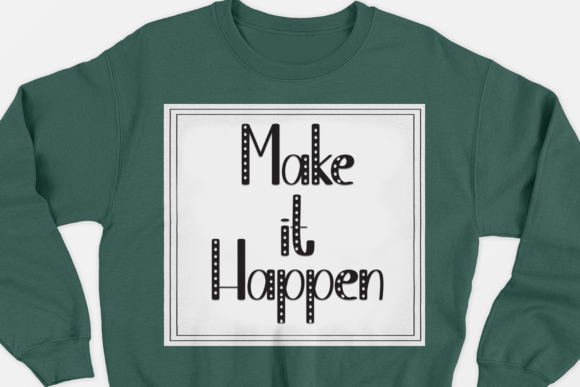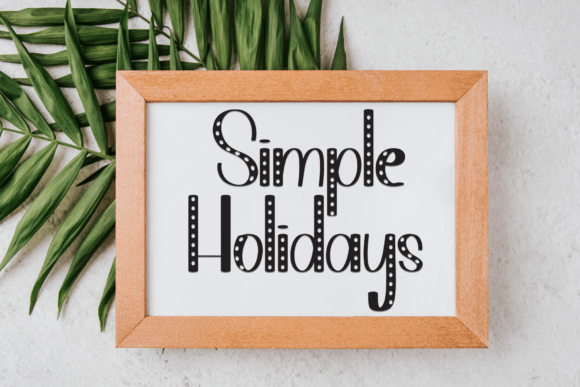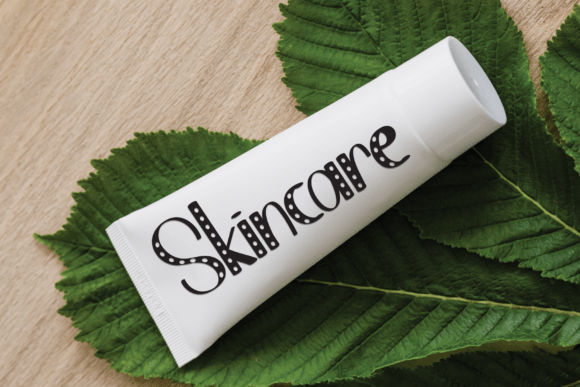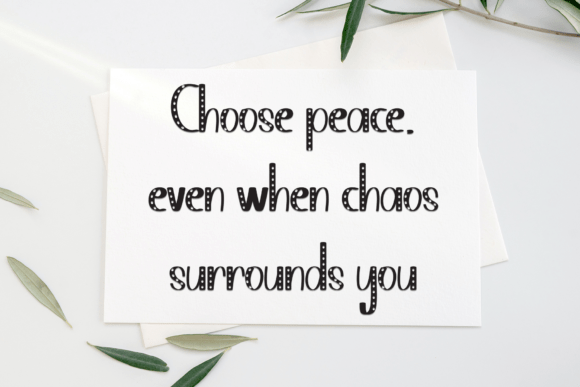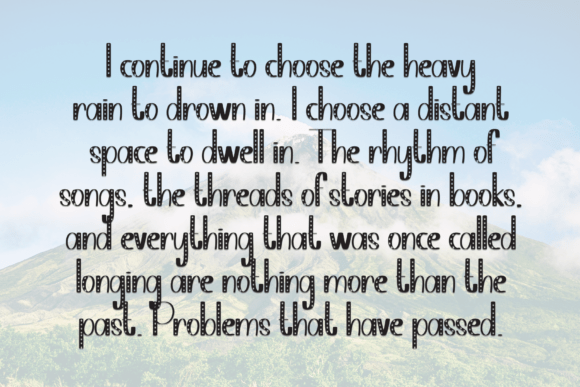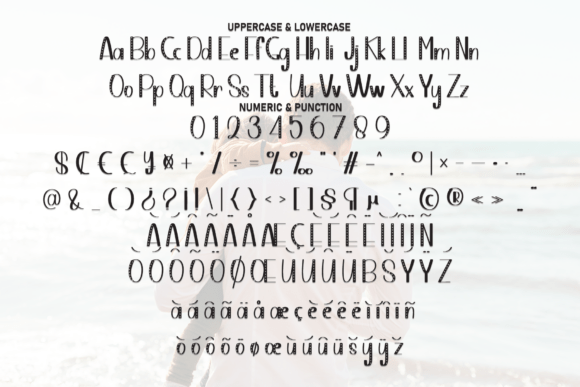
Daddy Sunday Font: Elevate Your Designs with Eclectic Elegance
Are you a designer or crafter looking for a font that can add a touch of elegance and playfulness to your creative projects? Look no further than the Daddy Sunday Font. This modern, yet playful, display font is meticulously fashioned with a distinct hand-scripted signature that exudes an infectious charm. In this article, we’ll dive into the features and benefits of the Daddy Sunday Font and explore how it can elevate your designs.
What is Daddy Sunday Font?
The Daddy Sunday Font is a unique and versatile display font that combines modern and playful elements. Its hand-scripted signature gives it a personal and distinctive touch, making it perfect for a wide range of creative projects. Whether you’re designing wedding invitations, greeting cards, or other visual materials, this font is sure to make your designs stand out.
Key Features of Daddy Sunday Font
- Hand-scripted signature: The Daddy Sunday Font features a distinct hand-scripted signature that gives it a personal and elegant touch.
- Modern and playful: This font combines modern and playful elements, making it perfect for designers and crafters who want to add a touch of whimsy to their designs.
- Ethereal romantic sheen: The Daddy Sunday Font is perfect for wedding invitations and other romantic designs, adding an ethereal and elegant touch.
- Avant-garde edge: This font also has an avant-garde edge, making it suitable for designers who want to add a modern and edgy touch to their designs.
Benefits of Using Daddy Sunday Font
The Daddy Sunday Font offers a range of benefits for designers and crafters. Here are just a few:
- Unique and distinctive: This font is sure to make your designs stand out with its unique and distinctive hand-scripted signature.
- Versatile: The Daddy Sunday Font is versatile and can be used for a wide range of creative projects, from wedding invitations to greeting cards.
- Elegant and playful: This font combines elegant and playful elements, making it perfect for designers who want to add a touch of whimsy to their designs.
- Easy to use: The Daddy Sunday Font is easy to use and can be easily integrated into your design workflow.
Creative Uses for Daddy Sunday Font
The Daddy Sunday Font is perfect for a wide range of creative projects. Here are just a few ideas:
- Wedding invitations: Add an ethereal romantic sheen to your wedding invitations with the Daddy Sunday Font.
- Greeting cards: Introduce an avant-garde edge into your greeting cards with this unique and playful font.
- Logos and branding: Use the Daddy Sunday Font to create a unique and distinctive logo or brand identity.
- Social media graphics: Add a touch of elegance and playfulness to your social media graphics with this versatile font.
Tips for Using Daddy Sunday Font
Here are a few tips for using the Daddy Sunday Font:
- Experiment with different sizes and colors: Play around with different sizes and colors to find the perfect combination for your design.
- Pair with other fonts: Pair the Daddy Sunday Font with other fonts to create a unique and visually appealing design.
- Use for headlines and titles: Use the Daddy Sunday Font for headlines and titles to add a touch of elegance and playfulness to your design.
In conclusion, the Daddy Sunday Font is a unique and versatile display font that can add a touch of elegance and playfulness to your creative projects. With its hand-scripted signature, modern and playful elements, and ethereal romantic sheen, this font is perfect for designers and crafters who want to make their designs stand out. Whether you’re designing wedding invitations, greeting cards, or other visual materials, the Daddy Sunday Font is sure to elevate your designs and add an irresistible allure.